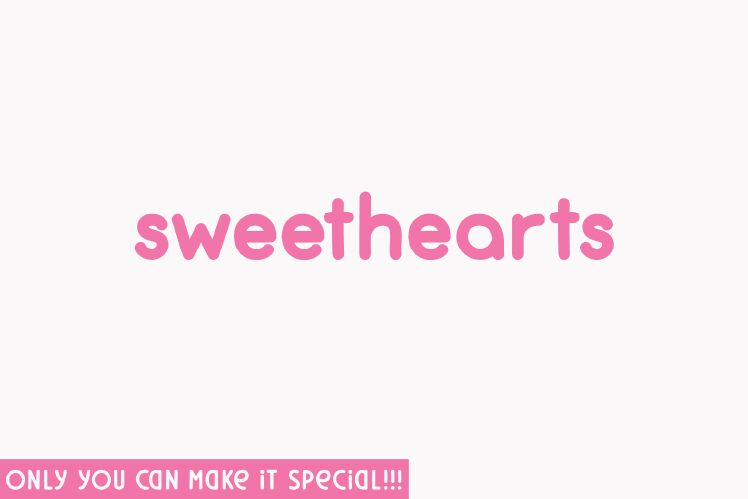
Sweethearts font by Hanna Bie is a bold display typographic design with playful rounded letters and a retro-inspired style. The friendly, bubbly, and approachable letter shapes give an informal feeling that also has some elegance to go with a professional presentation. This free font will fit all fun projects where audiences of different ages will enjoy and appreciate it.
This typeface easily decorates children’s books, toys packaging, posters, websites’ headers or banners, social media posts; just to mention the most common usages. It also makes an excellent choice for branding fun companies in addition to designing logos.